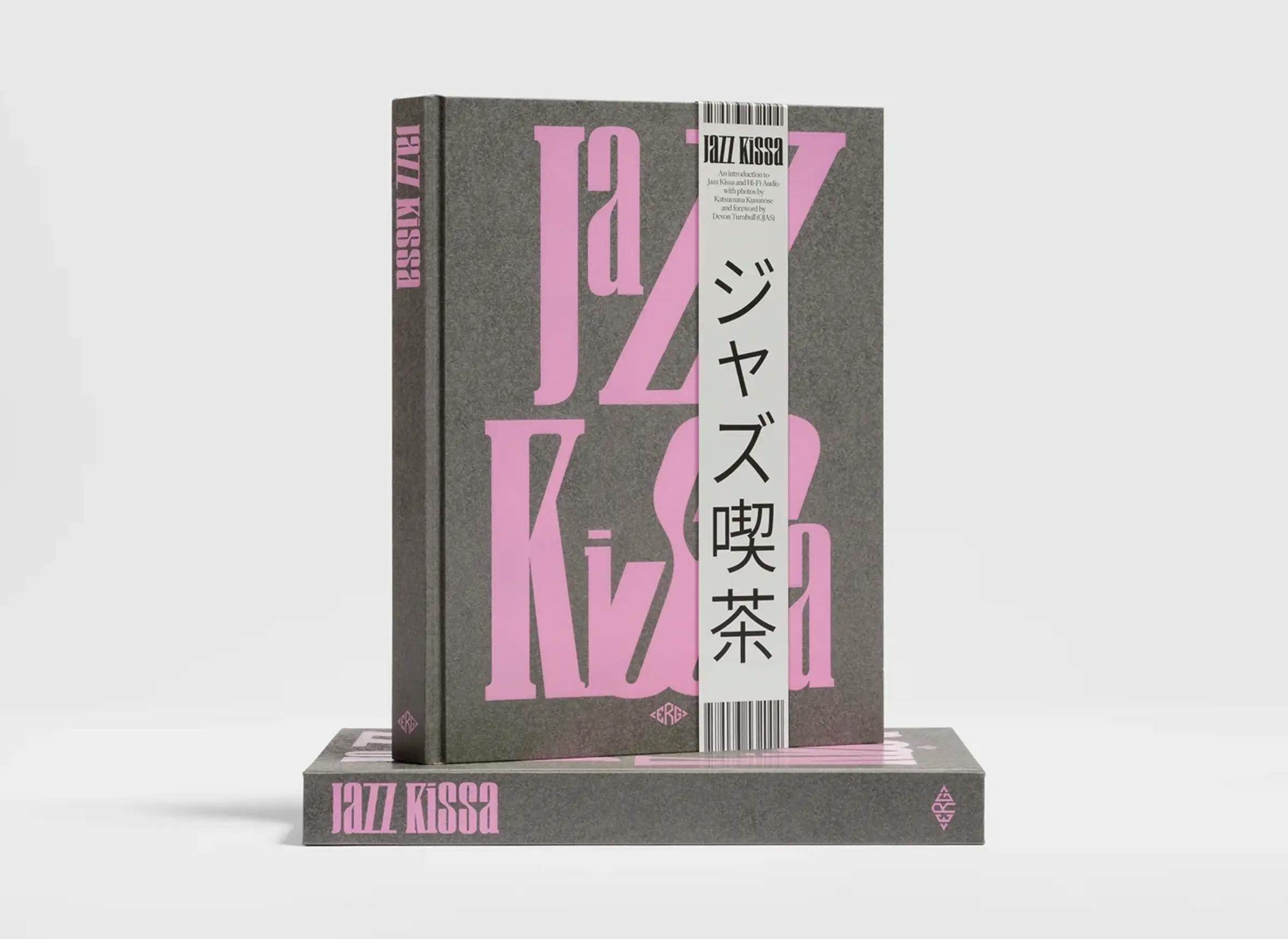
Craft draws its inspiration from the history of titling typography, particularly from that of ancient wooden characters. With a rustic charm as a strong foundation, its design takes another path to break away from conventional typographic norms. Bold and alternative, it pushes the boundaries of legibility to craft words and phrases that won't go unnoticed. It's the typeface for creating a daring visual identity and boldly conveying impactful messages.
Its design is the result of exploring letterforms within a limited scope: all glyphs are contained within the x-height, and seamlessly connect with each other. These unique features can be customized by the user by activating the third OpenType functionality. Accents extend above the x-height and below the baseline to enhance readability.
Monocase typeface,
with a rustic charm